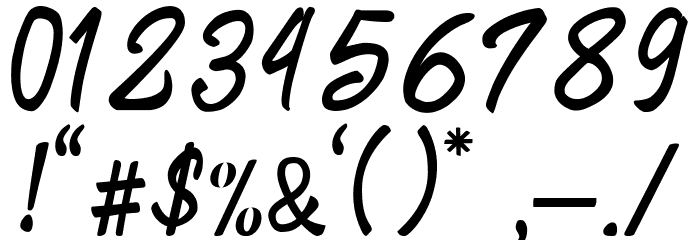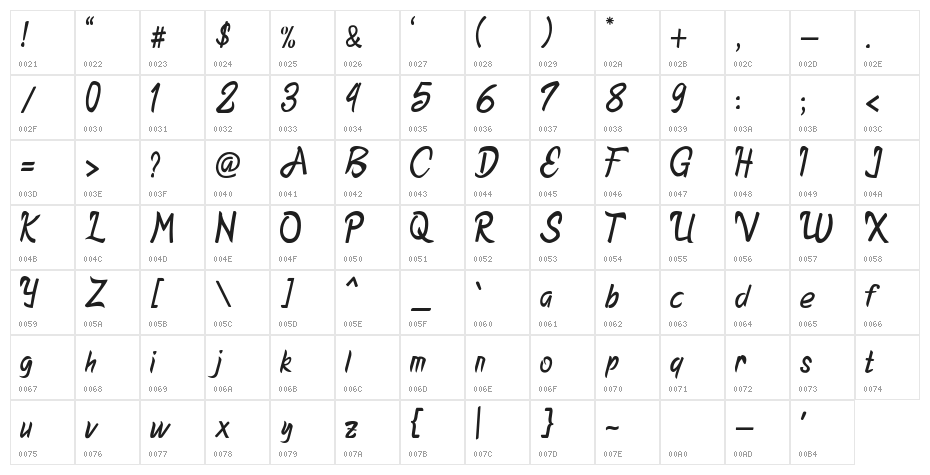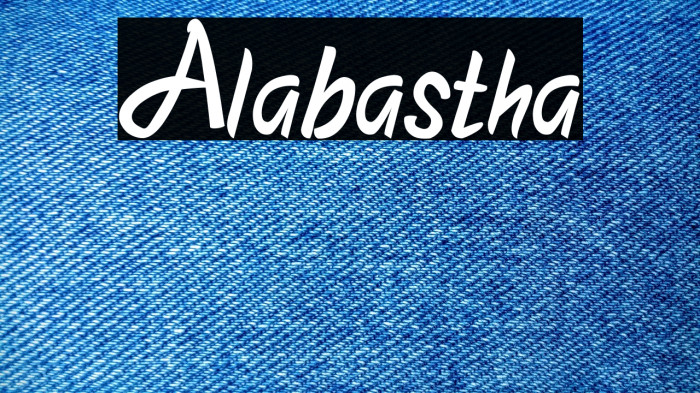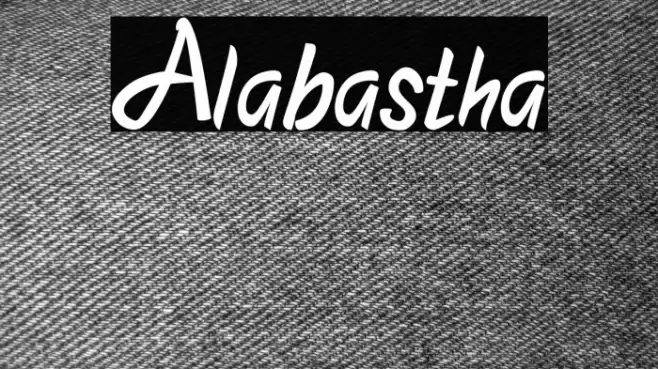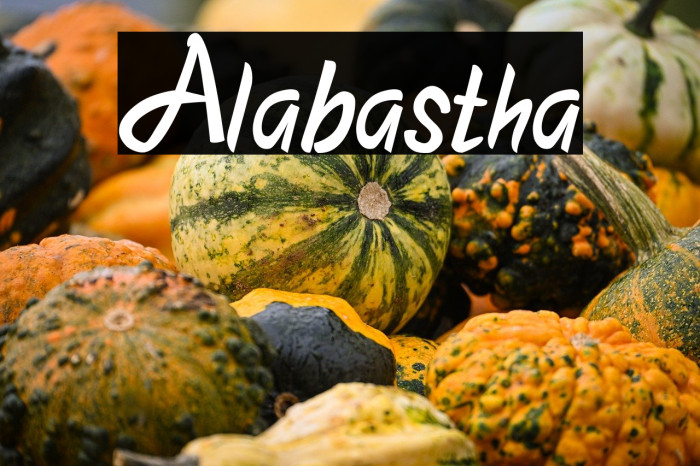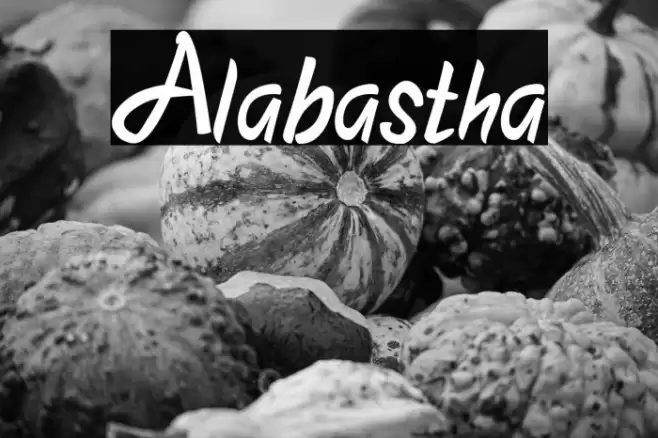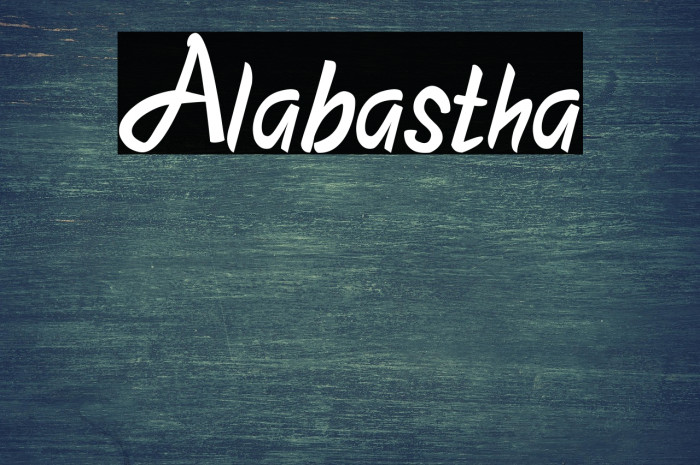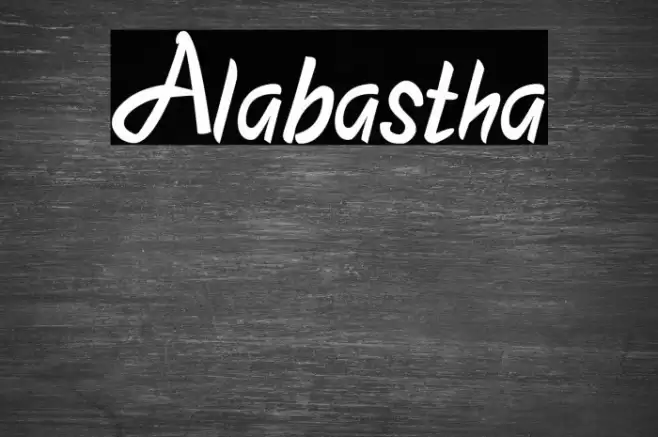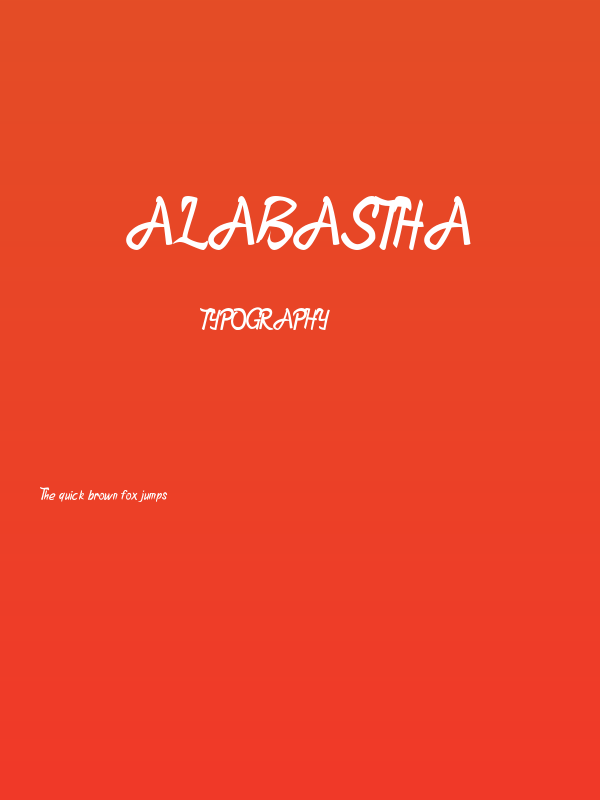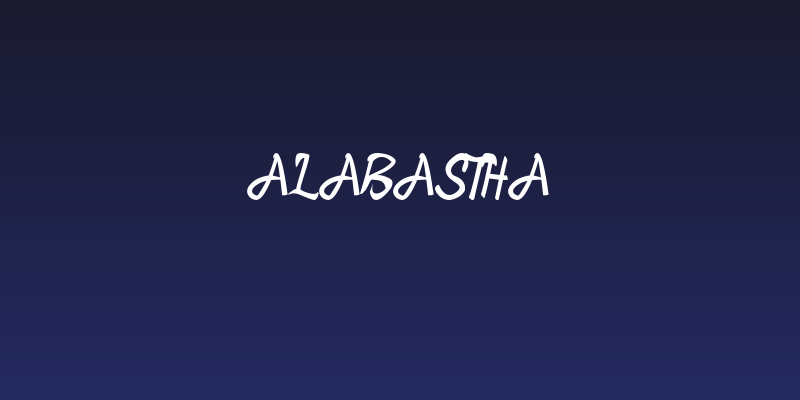
Alabastha Font
Alabastha Description
This font features a dynamic and energetic script style, characterized by its flowing, cursive letterforms that convey a sense of movement and fluidity. The uppercase letters are bold and slightly slanted, giving them a lively appearance, while the lowercase letters maintain a consistent rhythm with smooth curves and loops. The numerals are designed to match the overall style, with a playful yet legible form. Special characters are integrated seamlessly, enhancing the font's versatility. The overall impression is one of creativity and expressiveness, making it suitable for projects that require a personal touch.